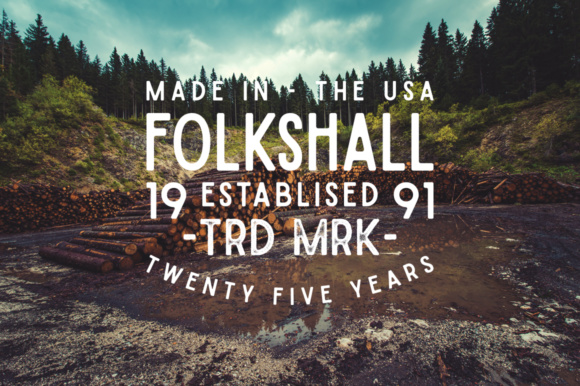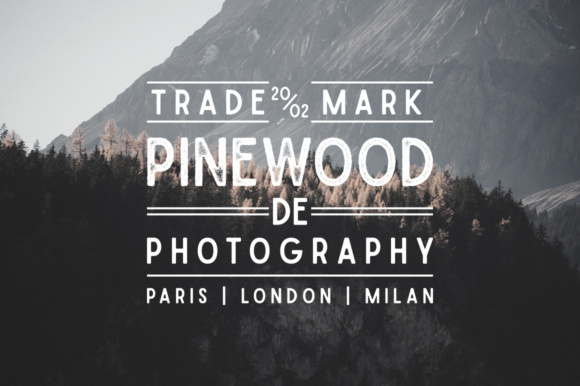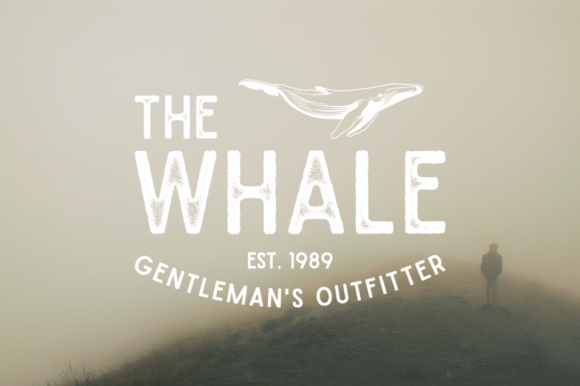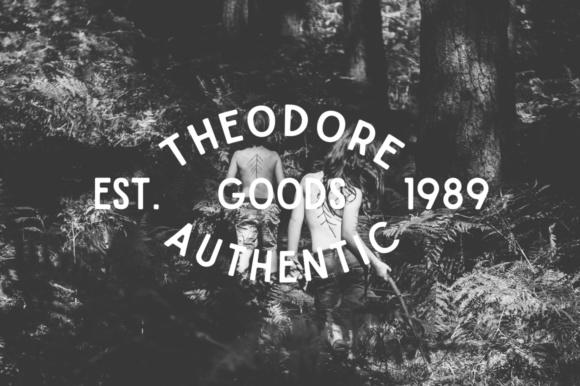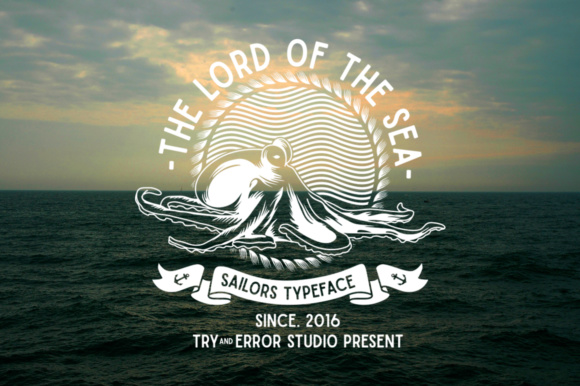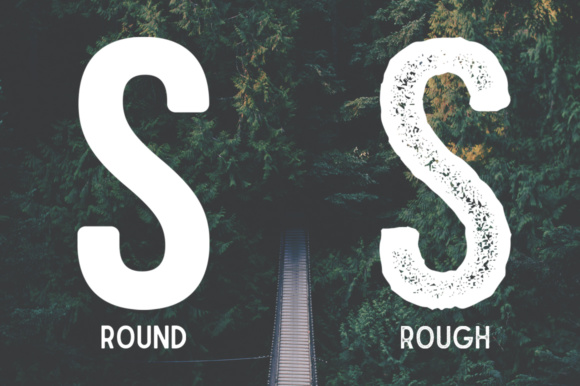
Introduction to Sailors Font
Sailors is a clean, sans serif font that comes in 5 unique styles: Regular, Rough, Condensed, Slant & Condensed Slant.
It’s the perfect font for branding, labeling, vintage designs and much more Within seconds you can turn your design into a high quality design with a retro look and feel.
Key Features of Sailors Font
Why Choose Sailors Font?
Sailors Font offers exceptional quality and versatility, making it a valuable addition to your design toolkit. Whether you’re creating for personal projects or commercial use, Sailors Font delivers professional results.